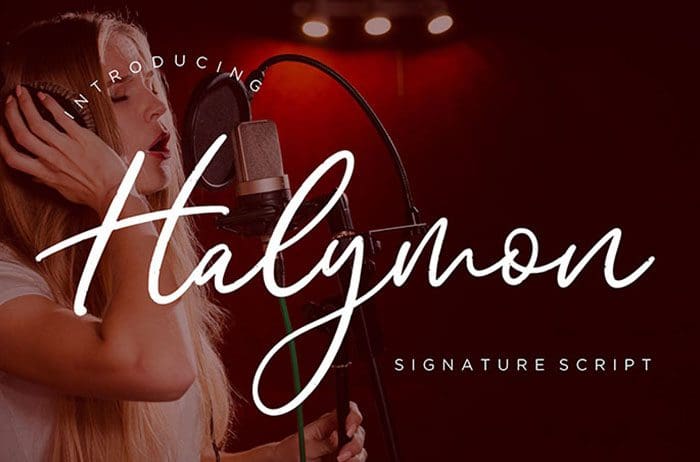
Halymon Script Font
Halymon is a beautiful signature Script Font which personal touch of natural movement. Halymon is perfect for branding projects, logo, wedding designs, product designs, label, invitation and more. Thanks to Creatype Studio for sharing this font! Take a look at this portfolio for more of his stunning fonts.